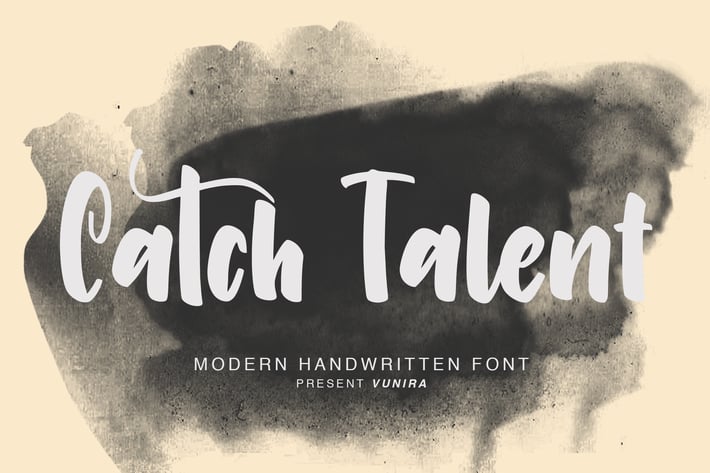
Catch Talent | Modern Handwritten Font
Catch Talent | Modern Handwritten Font with a calligraphy style, So beautiful on invitation like greeting cards, branding materials, business cards, quotes, posters, and more!